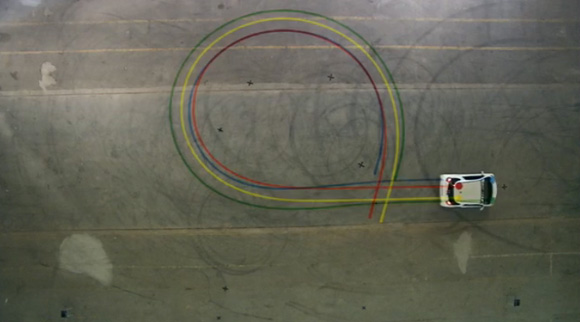
Toyota iQ Font
Belgian design duo Pierre Smeets and Damien Aresta of PLEASELETMEDESIGN collaborated with Zachary Lieberman of creative coding collective (accidental alliteration…. damn, there we go again) openFrameworks, a professional racing driver and of course the chaps with the money to see this through, Toyota Belgium, to produce a truly unique typeface created by custom software tracking the car’s carefully mapped out movements.